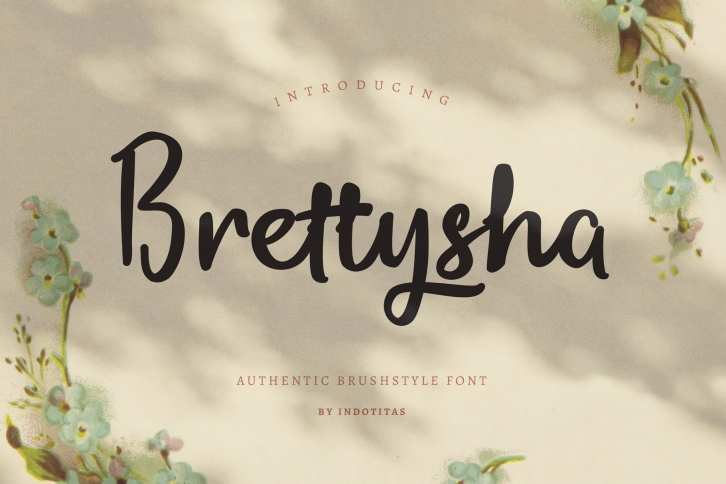
Brettysha created with stylistic casual brush characters. This casual font was PUA encoded. Brettysha is an authentic brushstyle font that comes with Extended Latin Characters. Brettysha works perfectly for logos, display, product branding, wedding invitation card, stationary, packaging, clothing, flyer, apparel, magazines, brochures, lable, posters, badges, etc.
Brettysha comes with 228 glyphs and 26 alternate characters contain with opentype features (supported with contextual alternates mode).
• Basic Latin A-Z and a-z
• Symbols
• Contextual Alternate Support
• Opentype Feature
• PUA Encoded
• Multingual Support